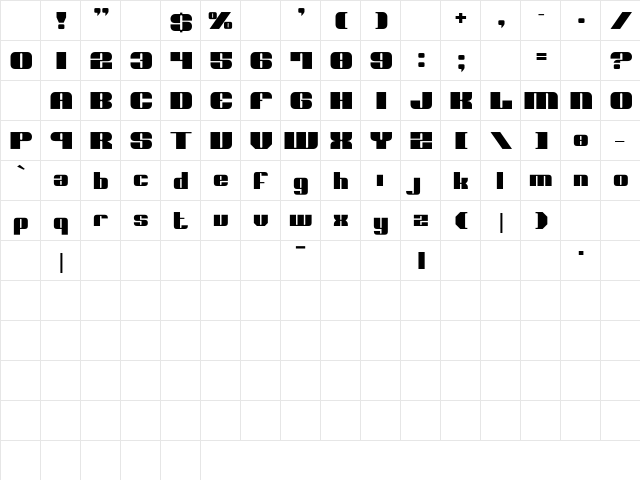
Nolo Contendre Normal Free Font
Nolo Contendre Normal
Design Context for Nolo Contendre
Nolo Contendre is a composed and adaptable typeface that performs quietly and consistently across a wide range of design contexts.
Pro Tip: Use Nolo Contendre in both headline and body roles to test its range before committing to a single application.